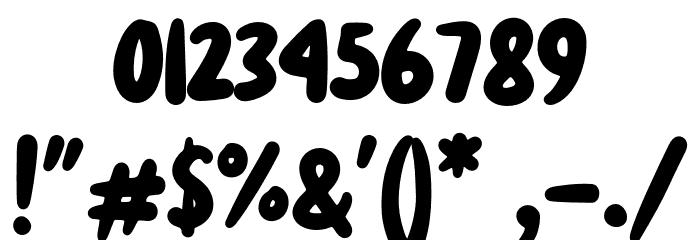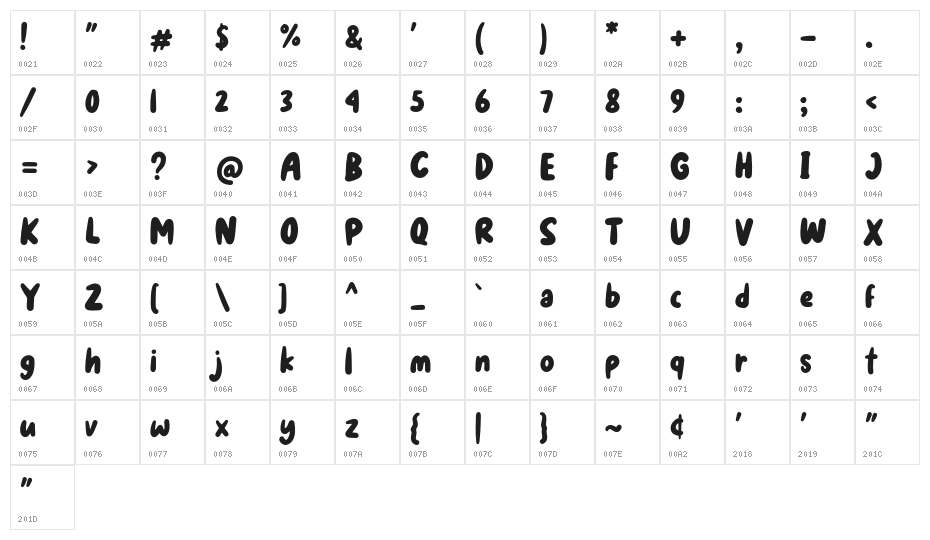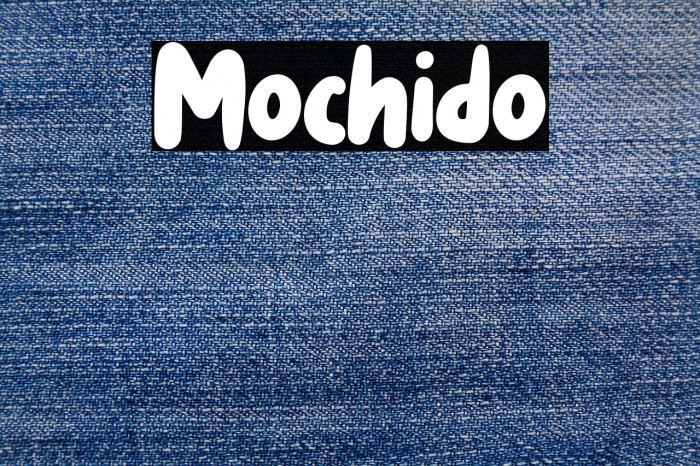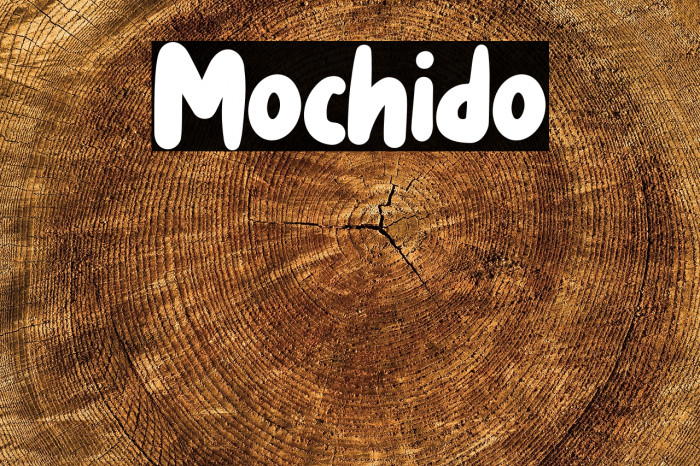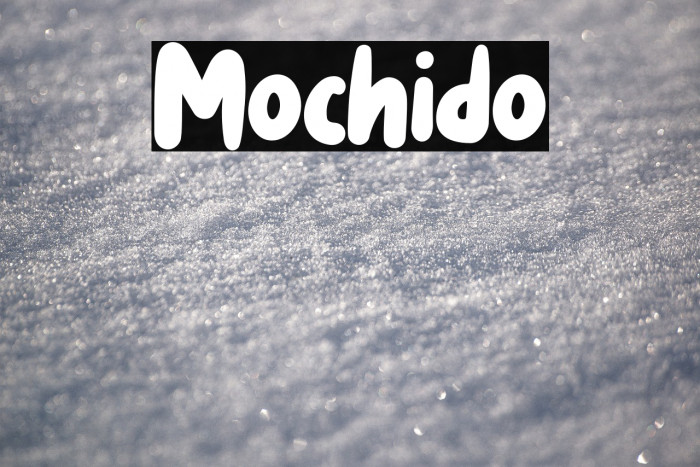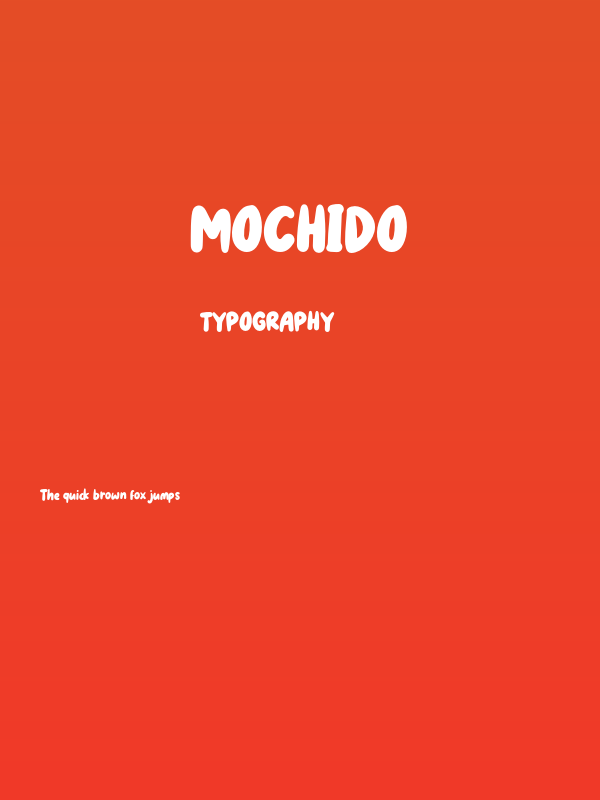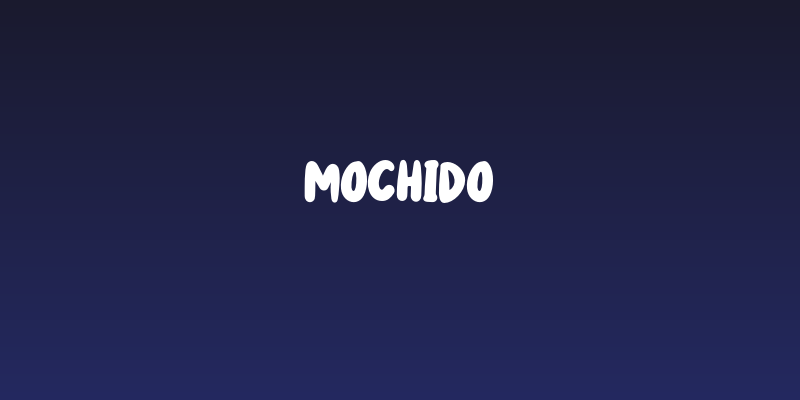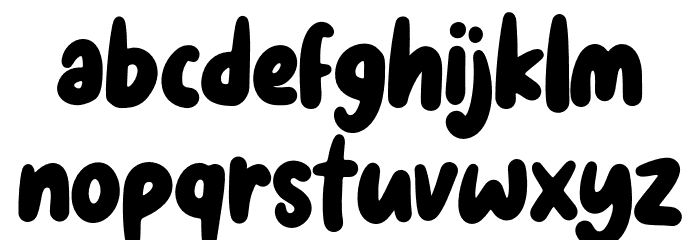
Mochido Font
Mochido Description
This playful and bold font features rounded, thick strokes that give it a friendly and approachable appearance. The characters are uniformly bold, with a consistent weight that adds to its cohesive look. The rounded edges and smooth curves contribute to its informal and fun style, making it ideal for creative and casual applications. The font maintains a consistent height across uppercase and lowercase letters, with a slightly wider stance that enhances readability. The numerals and special characters are designed to match the playful aesthetic, ensuring a harmonious look across all text elements.
| Proposed Projects | Ideal for children's books, playful branding, casual invitations, and creative posters. |